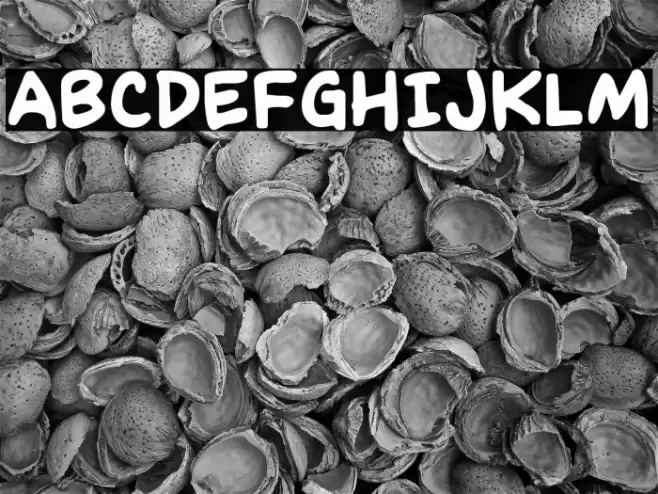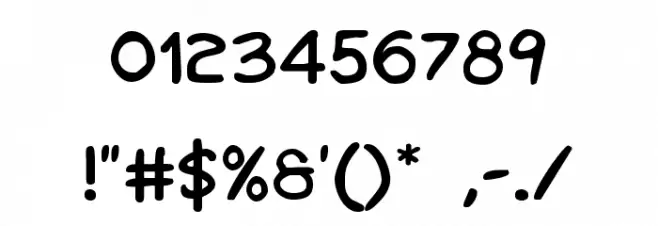
Kangaroo Court Regular Font
Kangaroo Court Regular Description
This playful and whimsical font features a handwritten style with bold, rounded characters. The letters are slightly irregular, giving it a casual and friendly appearance. The strokes are consistent in thickness, contributing to a uniform look across all characters. The font includes both uppercase and lowercase letters, numbers, and a variety of punctuation marks and special characters. Its informal style makes it suitable for projects that require a personal touch or a fun, relaxed vibe.
A playful, handwritten font with bold, rounded characters from Comic fonts.
- Proposed Projects: Ideal for children's books, greeting cards, casual invitations, and playful branding.
- Overall Style: Casual, Playful
- Use Case: Headlines, Informal text, Branding